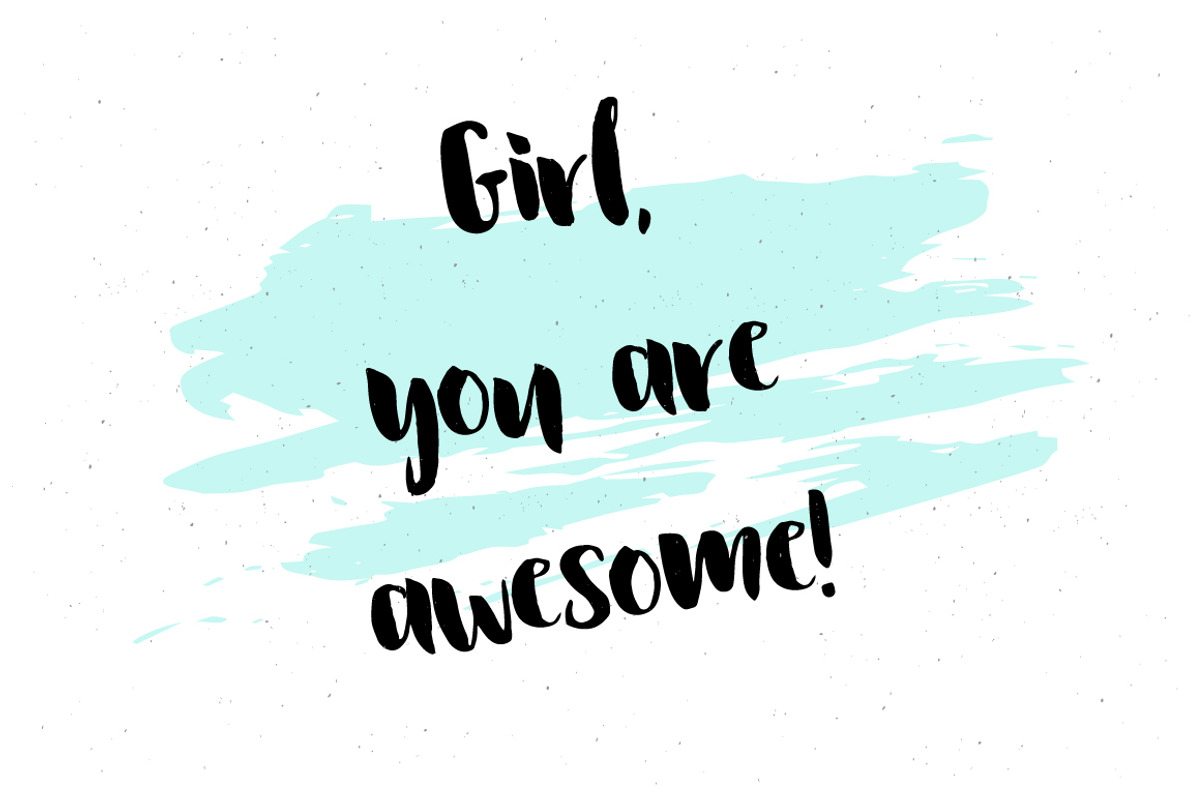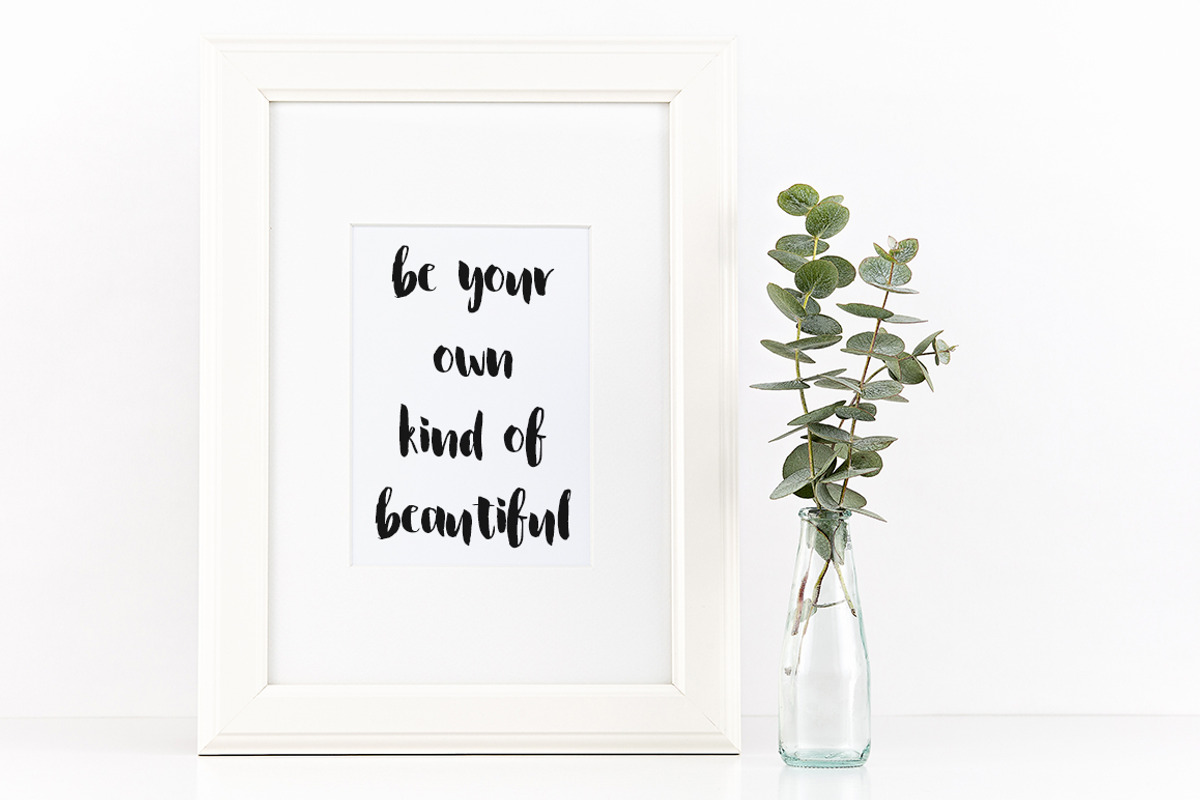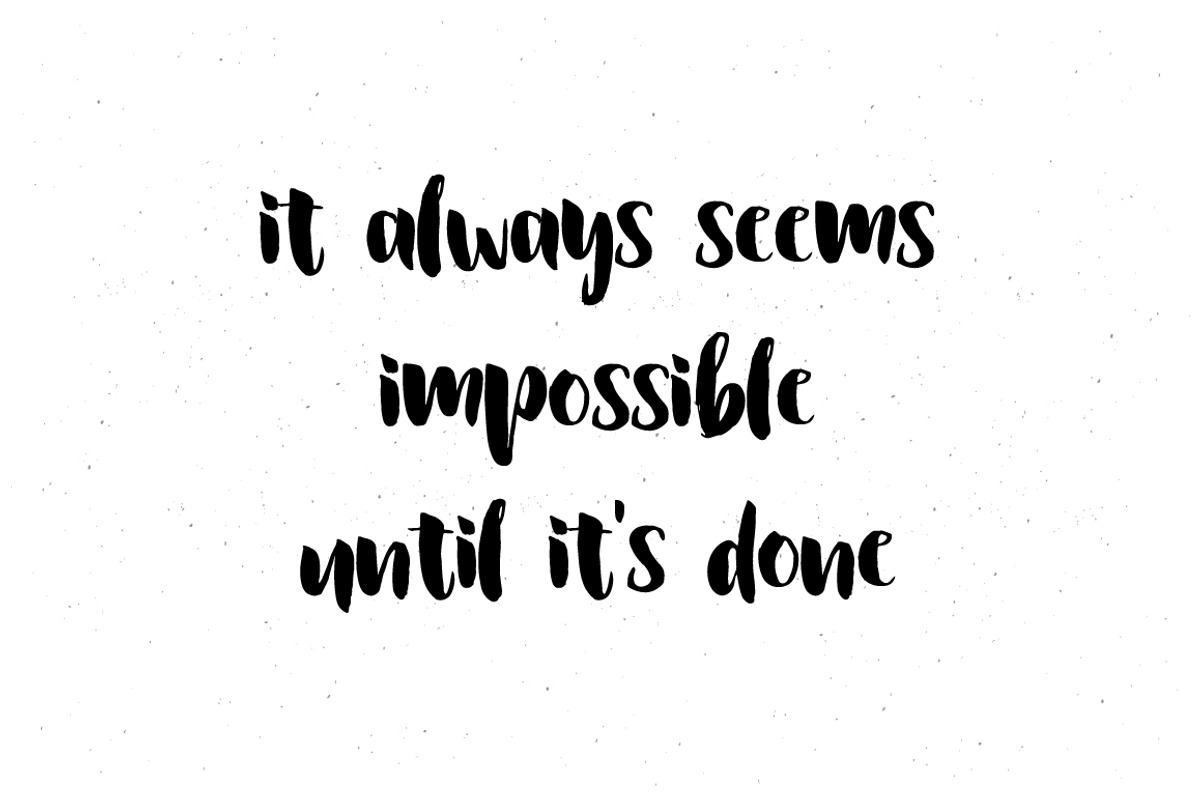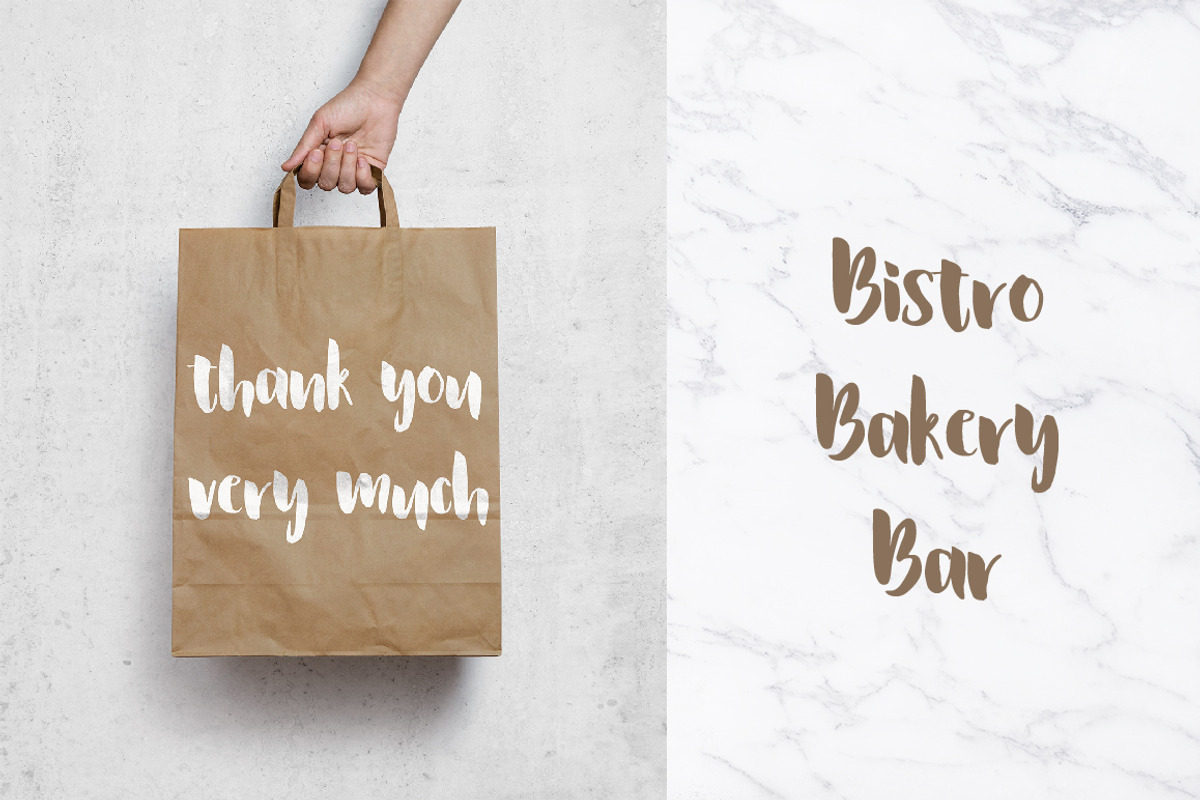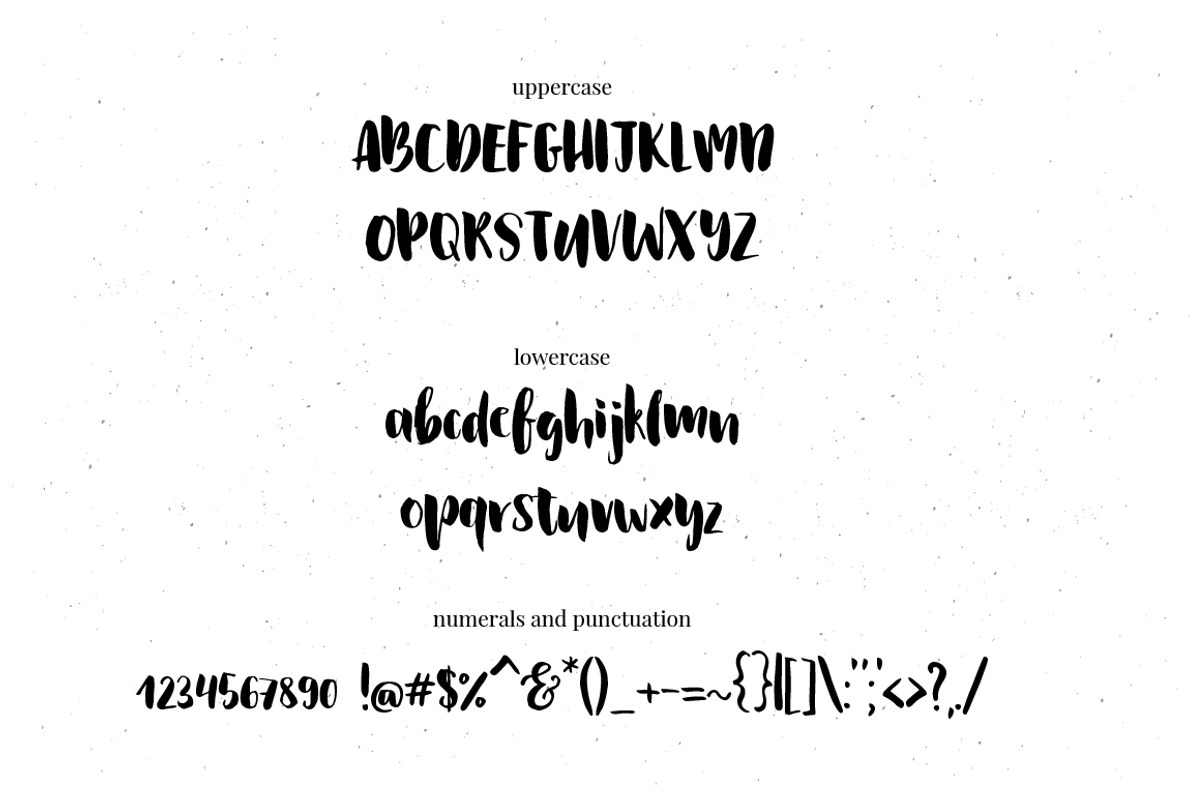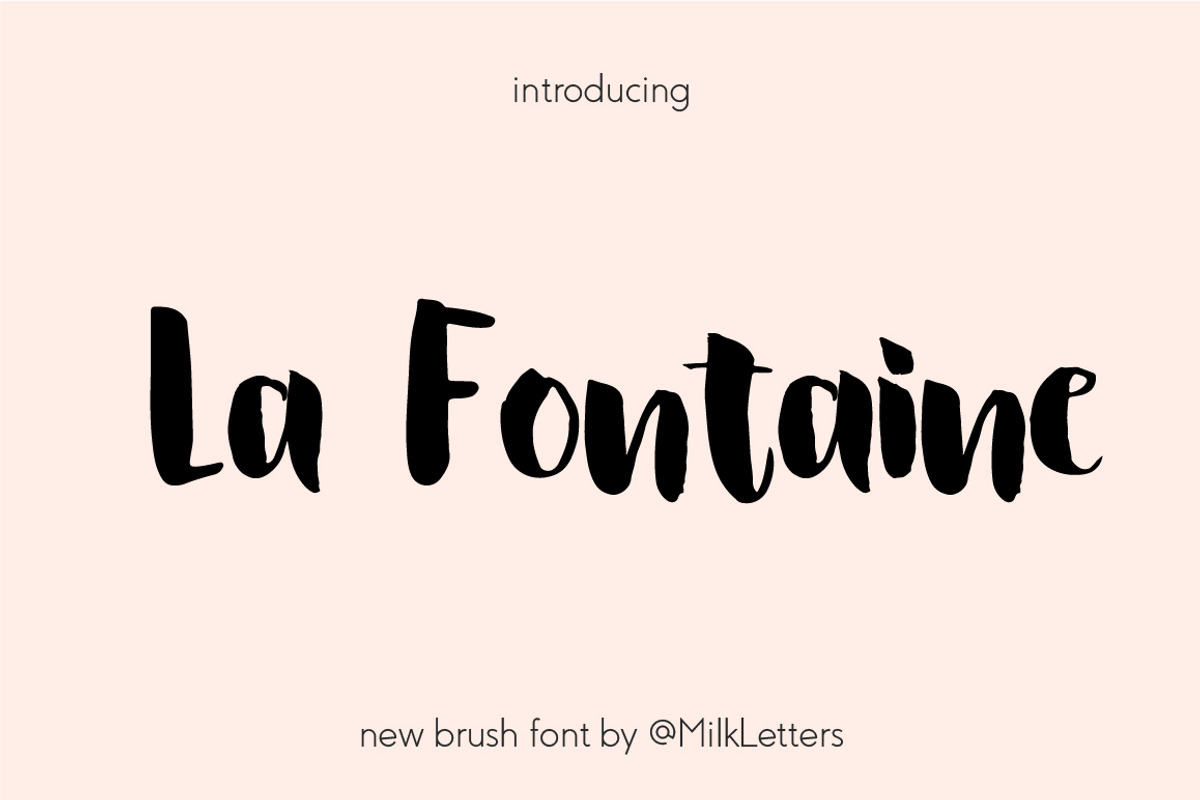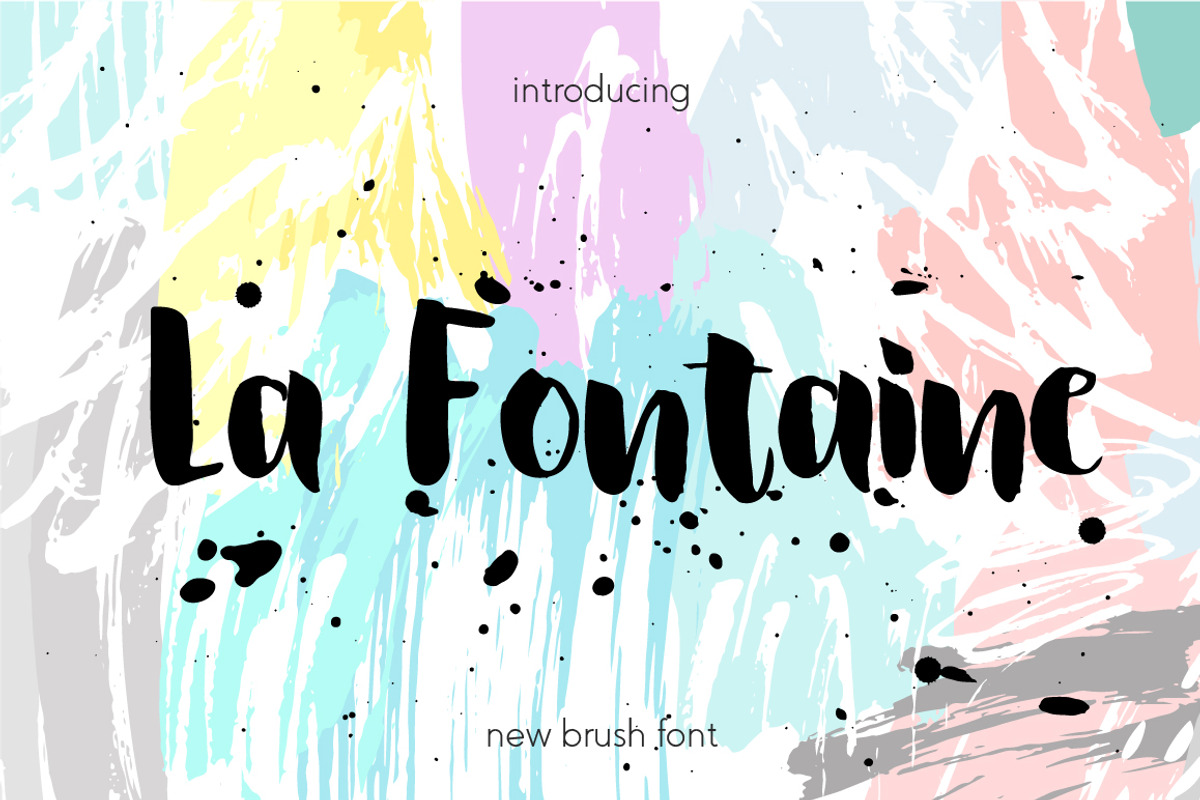
La Fontaine Brush Font
La Fontaine is a hand brushed font that was made with love. The font is great for invitations, greeting cards, branding, logos, magazine layout, prints and posters. Add a hand brushed touch to your lettering, logo designs, quotes, packaging, social media.